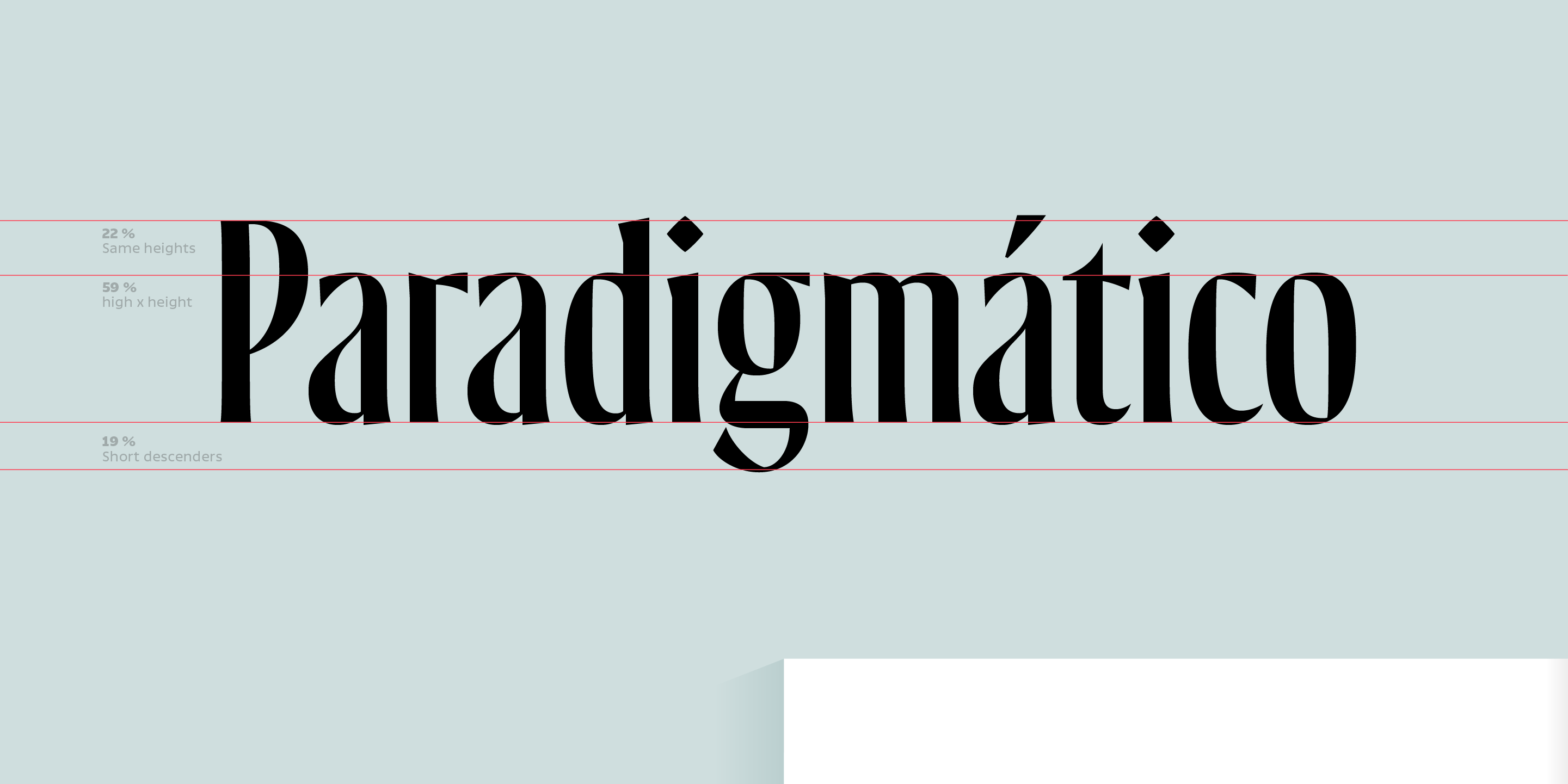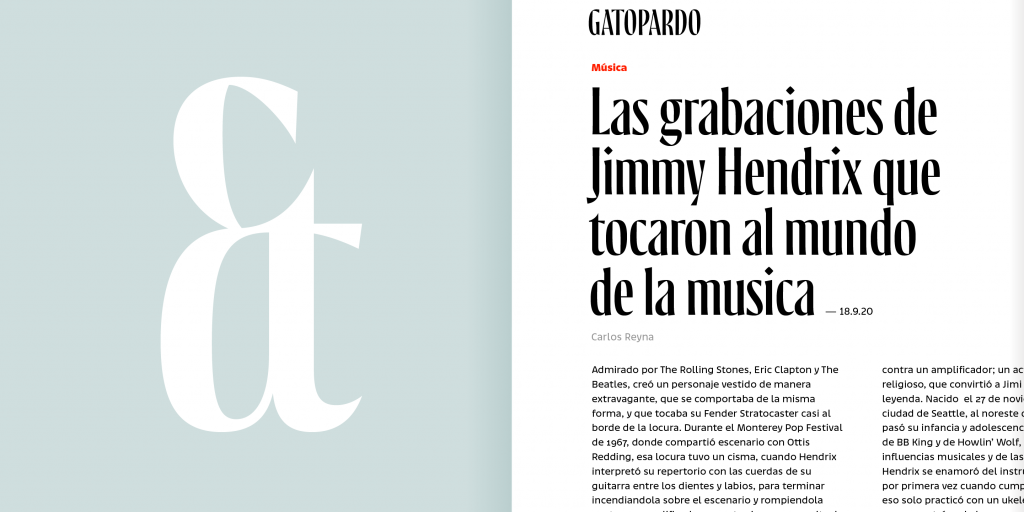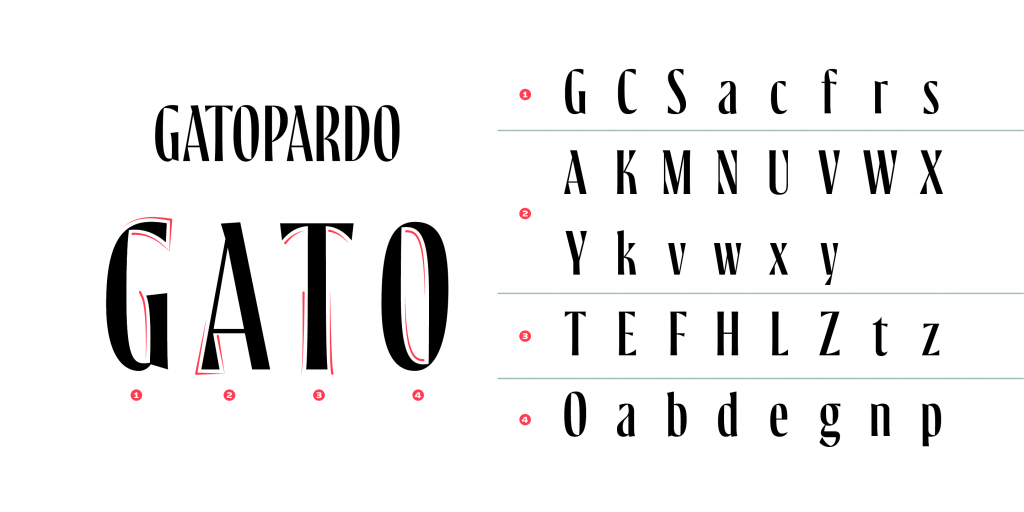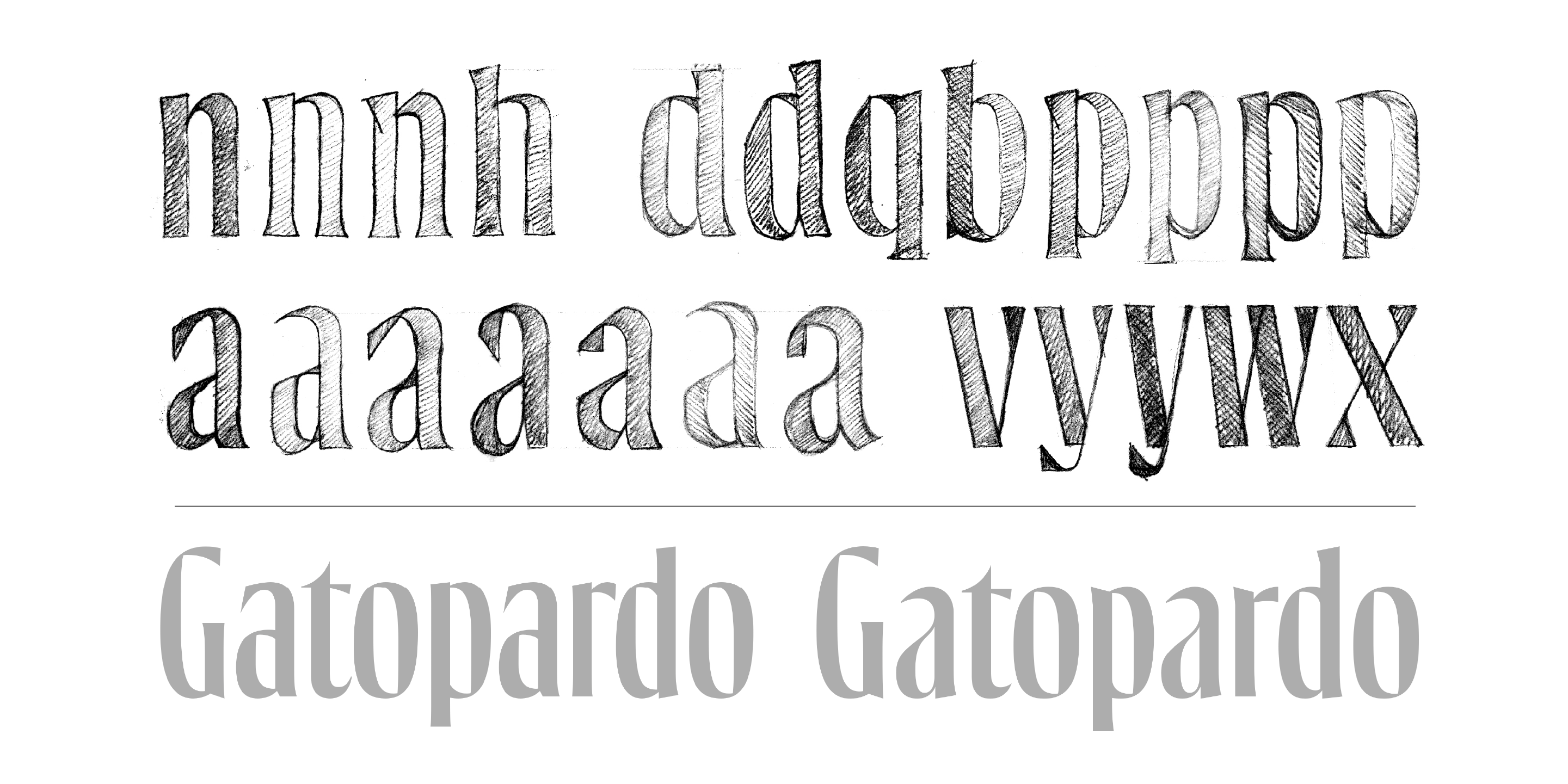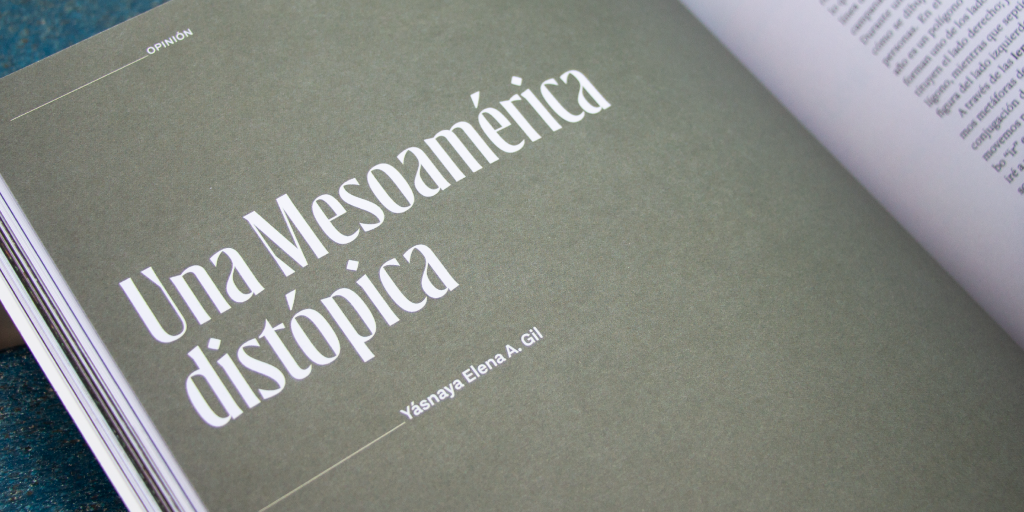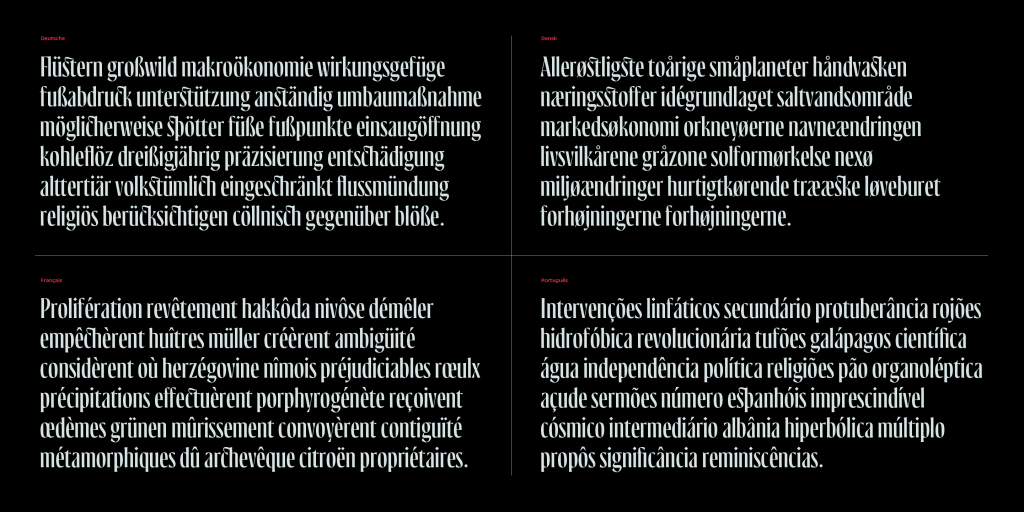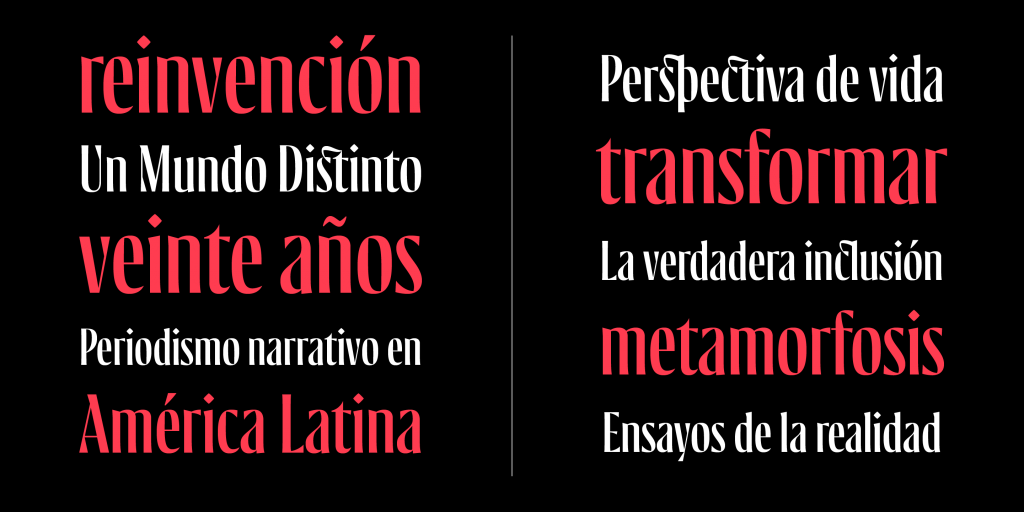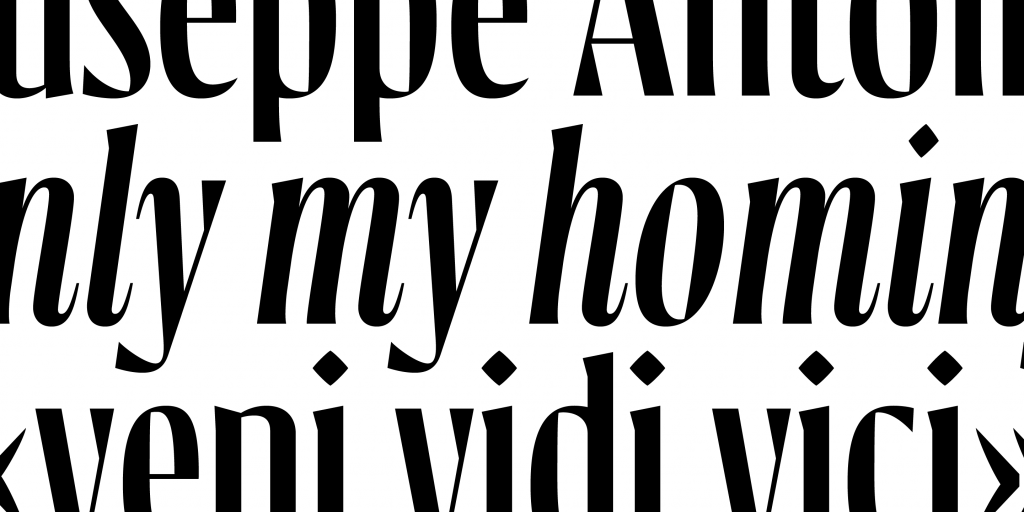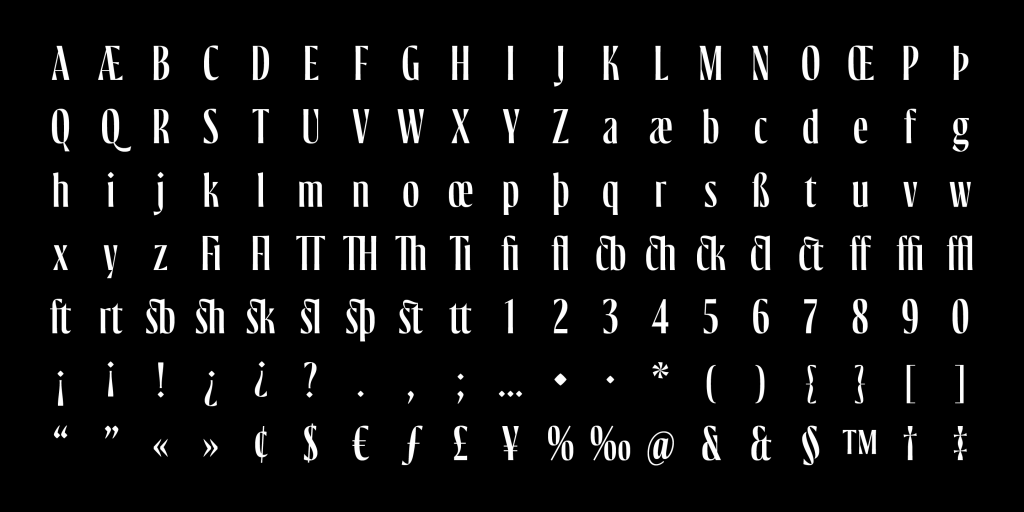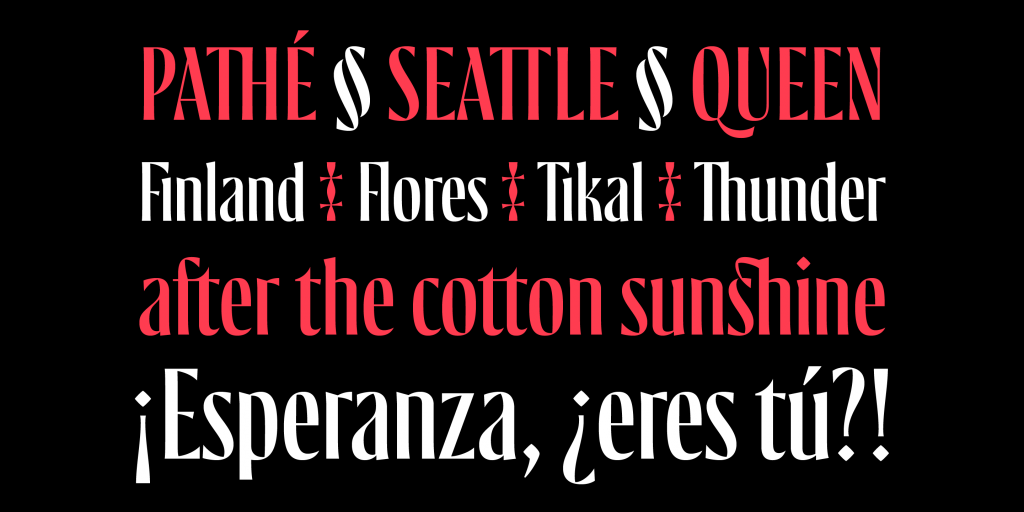
Gatopardo Display is the new custom font for the magazine of the same name, the perfect pretext for celebrating its 20th anniversary.
A renowned Mexican magazine of Latin American narrative journalism commemorated its twentieth anniversary. The design firm, varela+kimura, in charge of the editorial and brand redesign, invited me to participate in this project, designing a custom font based on their new logo. Because it was a display typeface, it was required to have a short vertical space, so the heights of the uppercase and ascending letters had the same size. To extract the DNA from the font, I relied on the internal counters of the letter O, the serifs of G, A, and the slight expansion details on the axes. All these components led to their reinterpretation for the rest of the characters. The result of Gatopardo Display was very satisfactory and very well-received since the font reinforces the identity of a magazine that remains fresh after twenty years and fits perfectly with its graphic and narrative style.